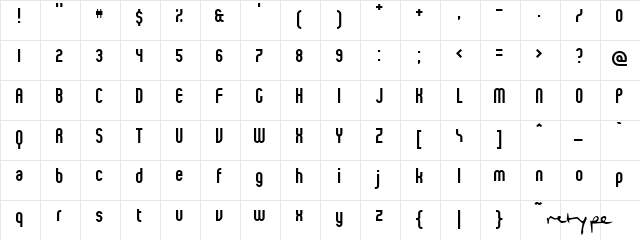
Proletarian Regular
Design Context for Proletarian Typeface
Proletarian takes a measured approach to typography — its balanced proportions and neutral character make it a reliable workhorse for both digital and print work.